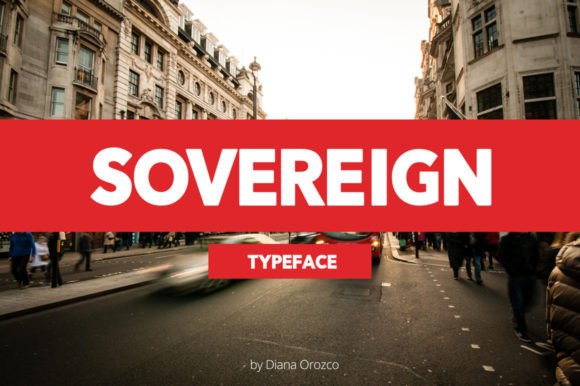
Are you seeking an iconic sans serif font that radiates charm and sophistication? Allow us to introduce you to Sovereign Font, an elegant creation from designdistrict, designed to elevate your business forms to new heights of excellence. Its clean, crisp lines and timeless appeal make it the perfect choice for those seeking a font that exudes professionalism and makes a lasting impression.
Sovereign Font is more than just a font; it's a statement of your brand identity. Its refined curves and graceful strokes command attention, symbolizing your unwavering commitment to quality and excellence. Whether you're crafting proposals, reports, invoices, or any other business document, Sovereign Font seamlessly blends readability with aesthetic appeal, ensuring that your message is conveyed with both clarity and style.
As a business owner, you understand the importance of creating a strong visual identity that sets your brand apart. Sovereign Font empowers you to do just that. Its versatility allows you to effortlessly create documents that reflect your unique personality and values. From modern and minimalist to classic and timeless, Sovereign Font adapts to your vision, allowing you to craft documents that resonate with your audience and leave a lasting impression.
Sovereign Font isn't just a tool; it's an experience. Its refined design evokes a sense of luxury and elegance, transforming everyday business documents into works of art. Your clients and partners will appreciate the attention to detail and professionalism that radiates from every page. With Sovereign Font, your business forms become more than just functional necessities; they become an extension of your brand, communicating your values and leaving a lasting legacy.
Don't settle for ordinary fonts that blend into the background. Embrace the power of Sovereign Font and unlock a world of possibilities for your business forms. Its classic beauty and timeless appeal will elevate your brand, inspire your team, and leave a lasting impression on your clients. Experience the Sovereign difference and see how a font can transform your business communications into something truly extraordinary.